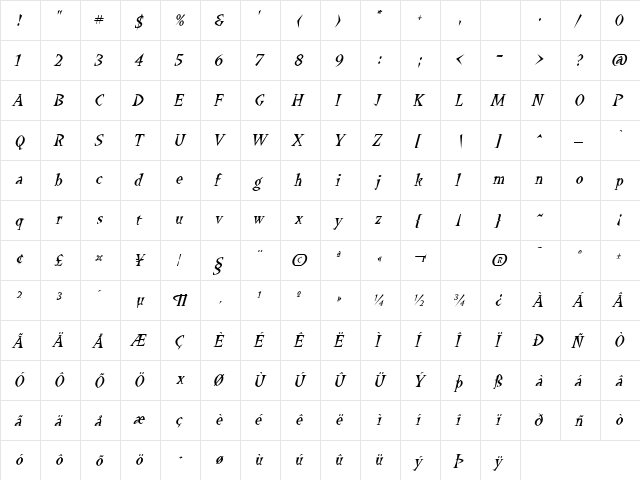
Quetzalcoatl Italic
Design Context for Quetzalcoatl Typeface
Quetzalcoatl is a composed and adaptable typeface that performs quietly and consistently across a wide range of design contexts. The dynamic lean of this cut emphasises speed and emphasis in any layout.